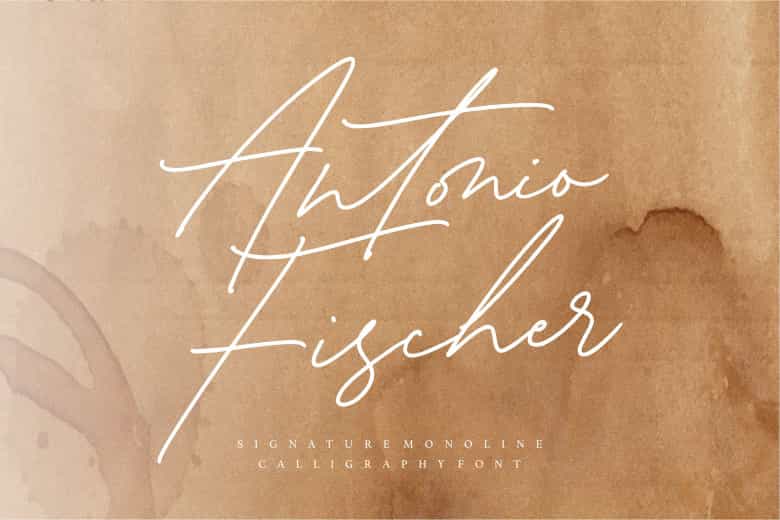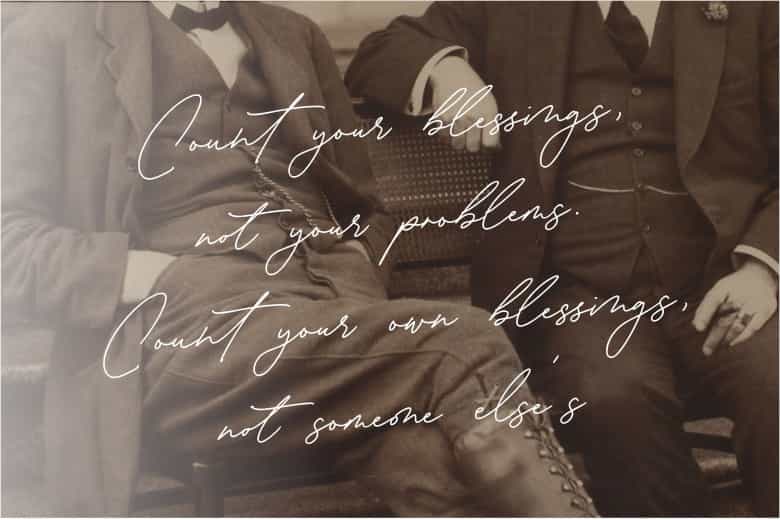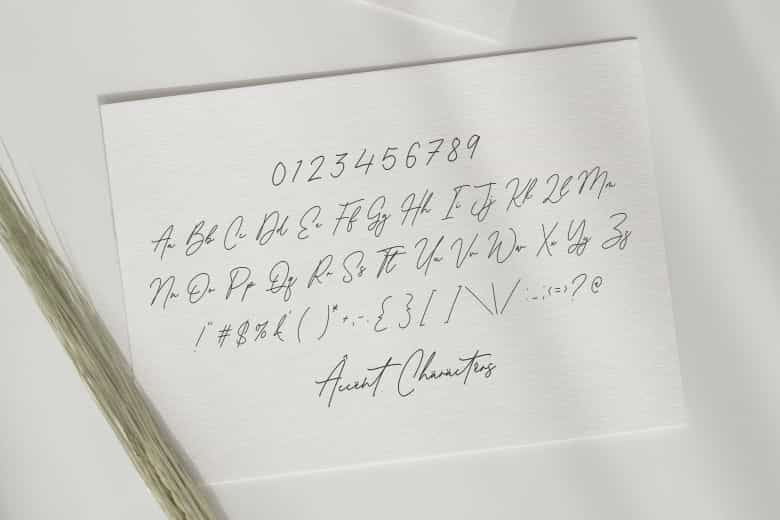
Antonio Fischeris a monoline script font that has handwritten signature style. This Antonio Fischer font was created with a pen handwritten by the original author. The collection of scripts are ideal to personalize your brand. It is suitable for a wide range of applications.